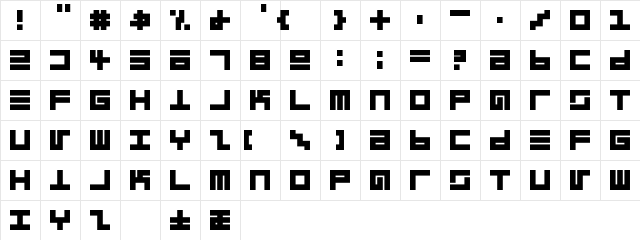
Epps Evans Black
Design Context for Epps Evans Typeface
Epps Evans is a composed and adaptable typeface that performs quietly and consistently across a wide range of design contexts.